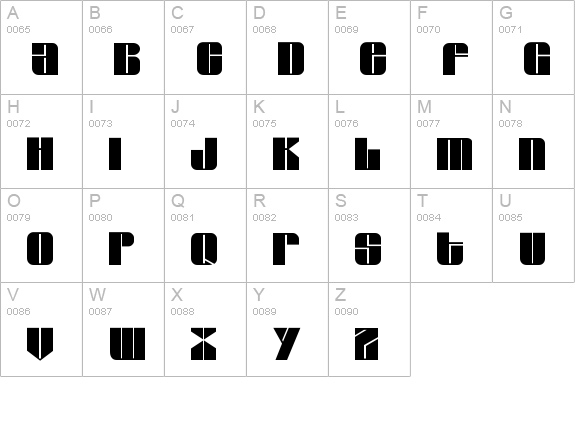
The GlyphicSeries font is a versatile and stylish typeface that exudes elegance and sophistication. Its unique design features intricate details and sharp edges, making it perfect for adding a touch of modern flair to your projects. Whether you're creating a sleek logo, elegant wedding invitations, or eye-catching branding materials, the GlyphicSeries font is sure to make a statement. And the best part? This stunning font is completely free to download at FontsMarket.com! Embrace the beauty and versatility of the GlyphicSeries font without breaking the bank. Download it today and elevate your designs with this exceptional typeface.